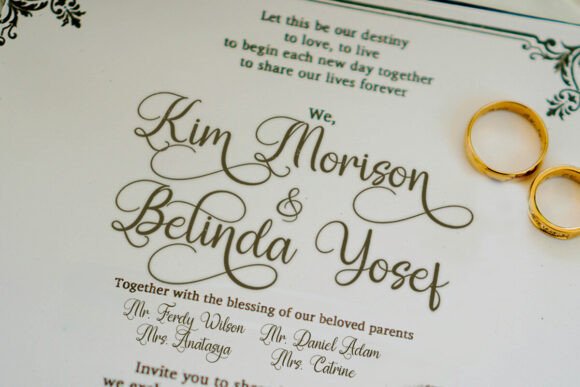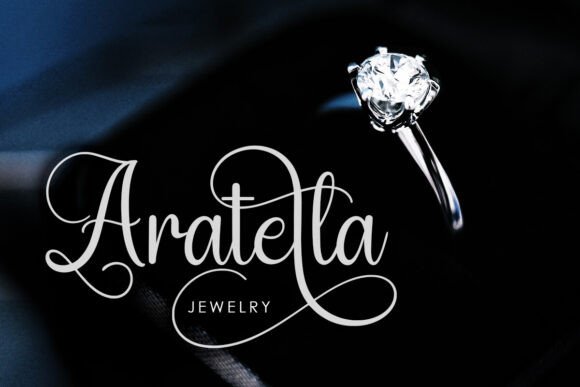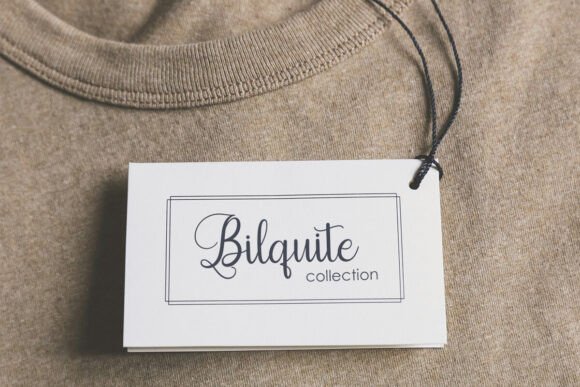
Daylight Mystery Font
Daylight Mystery – Elegant Handwritten Script Font Daylight Mystery is a refined handwritten script font that captures the essence of elegance and personal charm. With fluid strokes and natural letterforms, this typeface brings a handcrafted feel that’s perfect for high-end branding, wedding designs, social media graphics, and heartfelt quotes.Designed with attention to flow and rhythm, Daylight Mystery features graceful ligatures and alternate characters that allow you to create unique, signature-style typography. Whether you’re designing logos, invitations, or product packaging, this font adds a touch of sophistication and warmth.✦ Great For: – Wedding invitations & stationery – Branding for boutiques, beauty, and lifestyle products – Feminine logos and signature-style marks – Social media posts & quotes – Packaging and label designs